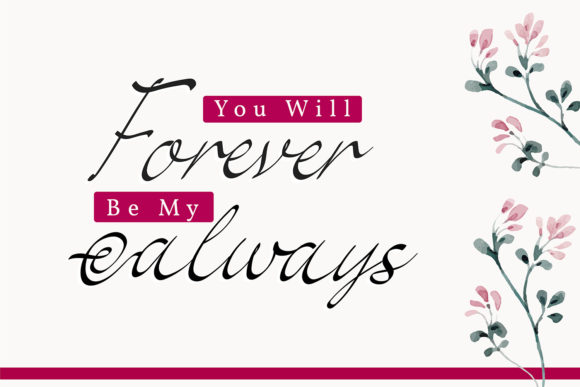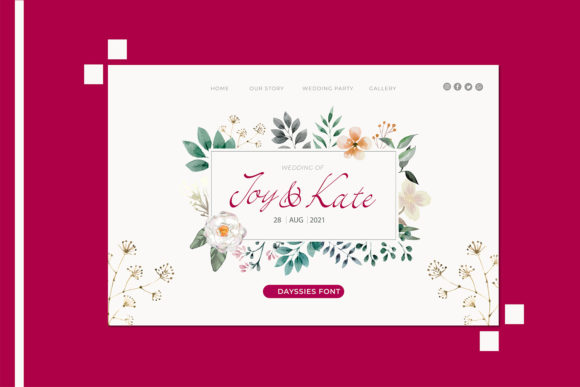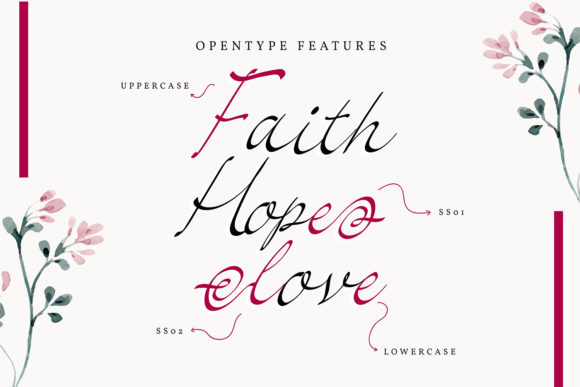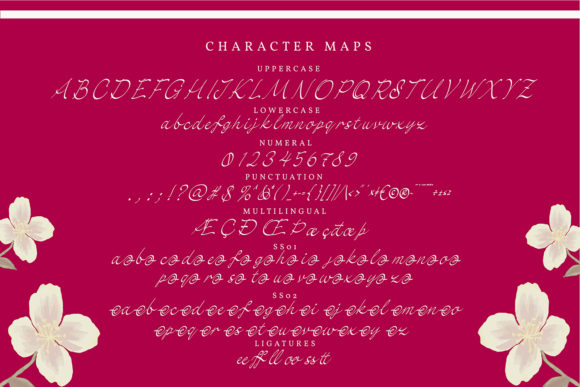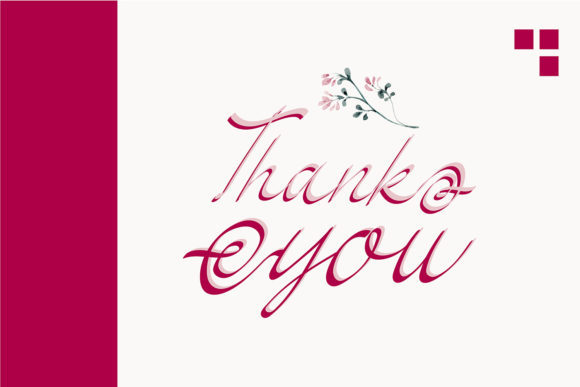
The Designer’s Delight: Unwrapping the Elegance of Dayssies Font
I’ll never forget the design project that had me stuck in a font rut. I was working on a branding project for a luxury client, and no matter how hard I tried, I just couldn’t find the perfect script font to capture the essence of their high-end product line. That was until I stumbled upon Dayssies Font – a stylish and cursive script font that instantly elevated my design game. In this article, I’ll share my love for Dayssies, its features, and how to make the most of it in your designs.
So, what makes Dayssies Font a standout in the world of script fonts? Let’s dive into the good stuff:
- ✨ Clean and smooth vibe: Dayssies boasts a thin, smooth, and elegant look that’s perfect for designs where you want to convey sophistication and style.
- ✅ PUA encoded for easy access: Being PUA encoded means you can easily access all the glyphs and swashes, making it a breeze to customize your text.
- ✅ Highly versatile: Whether you’re working on a logo, a brochure, or a social media graphic, Dayssies can adapt to various design needs.
Now, no font is perfect, and Dayssies has a couple of quirks:
- ⚠️ May not be suitable for body text: Due to its thin and cursive nature, Dayssies might not be the best choice for lengthy paragraphs. It’s ideal for headlines, titles, or short bursts of text.
- 🤔 Requires some learning for full utilization: With its PUA encoding and various glyphs, it might take some time to get familiar with all the features Dayssies has to offer.
The Story Behind Dayssies: A Glimpse into Its Creation
Dayssies was crafted with the modern designer in mind. Its creator aimed to produce a font that was not only stylish but also highly versatile and user-friendly. Inspired by the elegance of handwritten scripts and the cleanliness of digital typography, Dayssies emerged as a perfect blend of classic and contemporary design elements.
| Font Name | Dayssies Font |
| Author | Vunira |
| Is Dayssies suitable for body text? | No, due to its thin and cursive nature, Dayssies is best used for titles, headings, or short text passages. |
| Does Dayssies support OpenType features? | Yes, being PUA encoded, Dayssies allows for easy access to glyphs and swashes, supporting advanced typographic features. |
| Is Dayssies difficult to learn? | While Dayssies is user-friendly, getting familiar with its full range of features, especially for those new to typography, might require some time. |